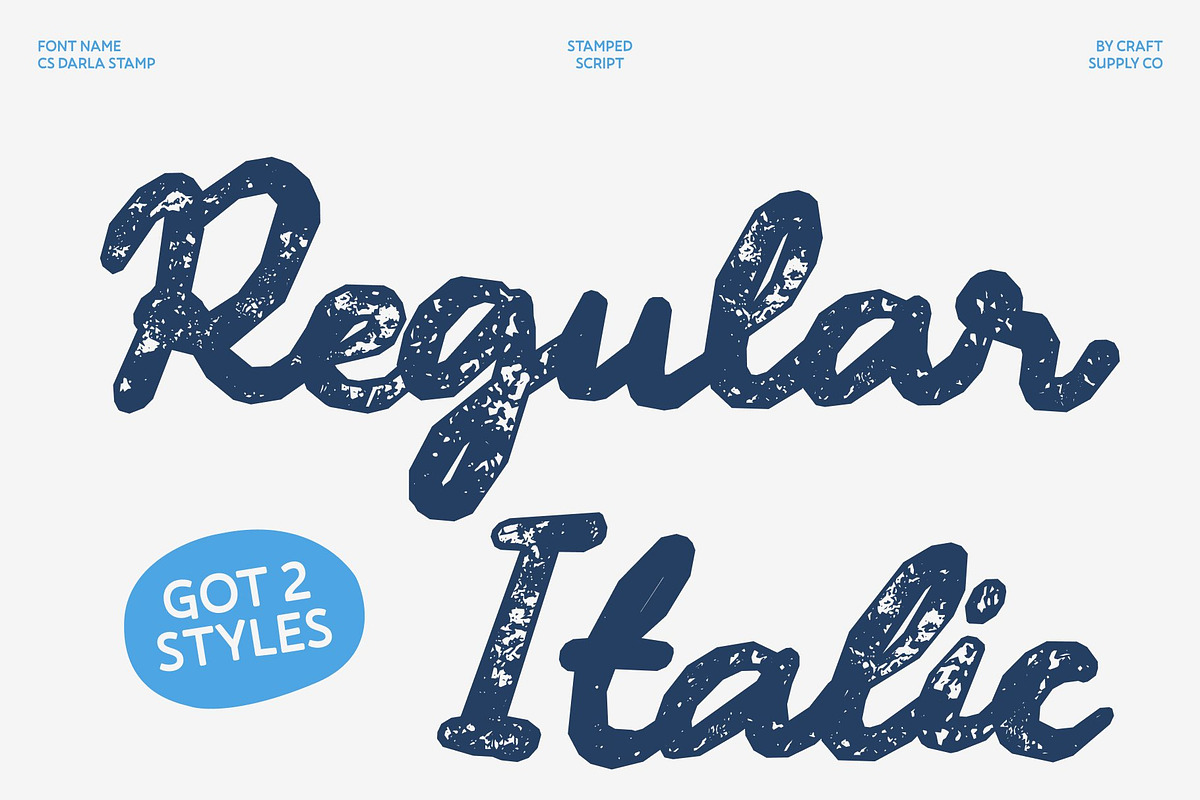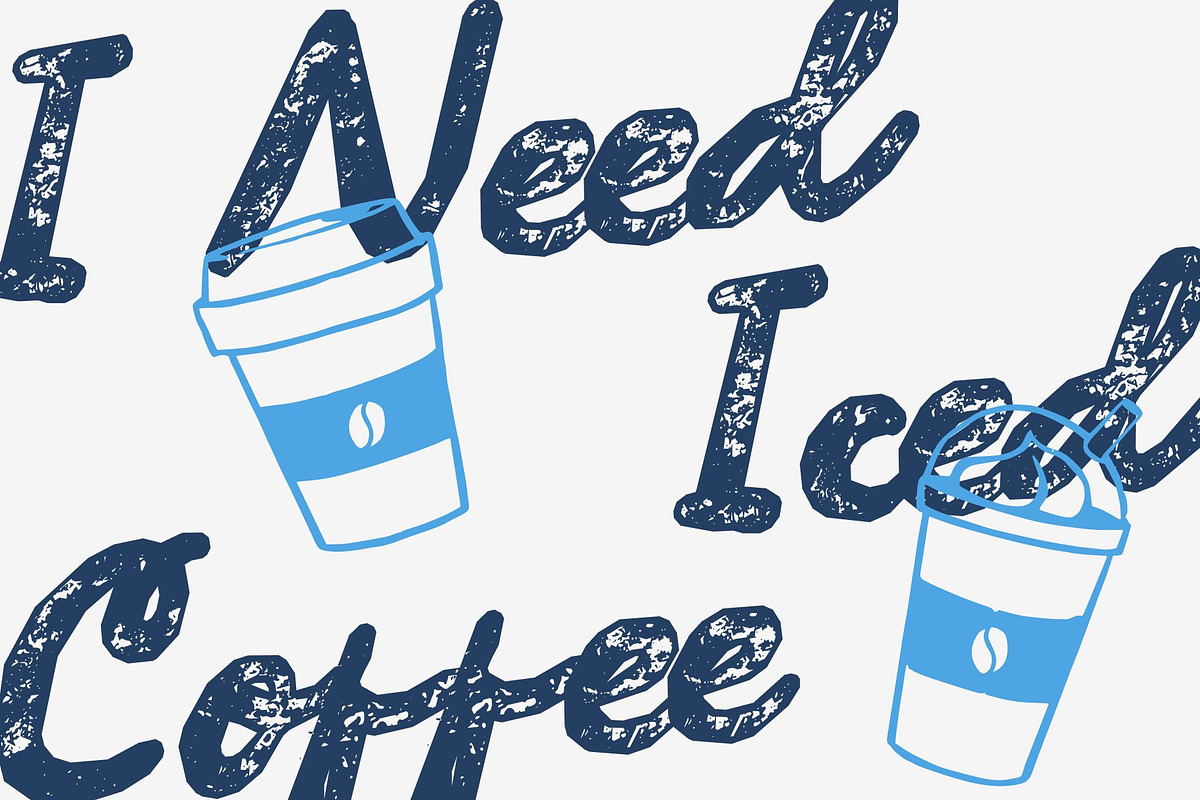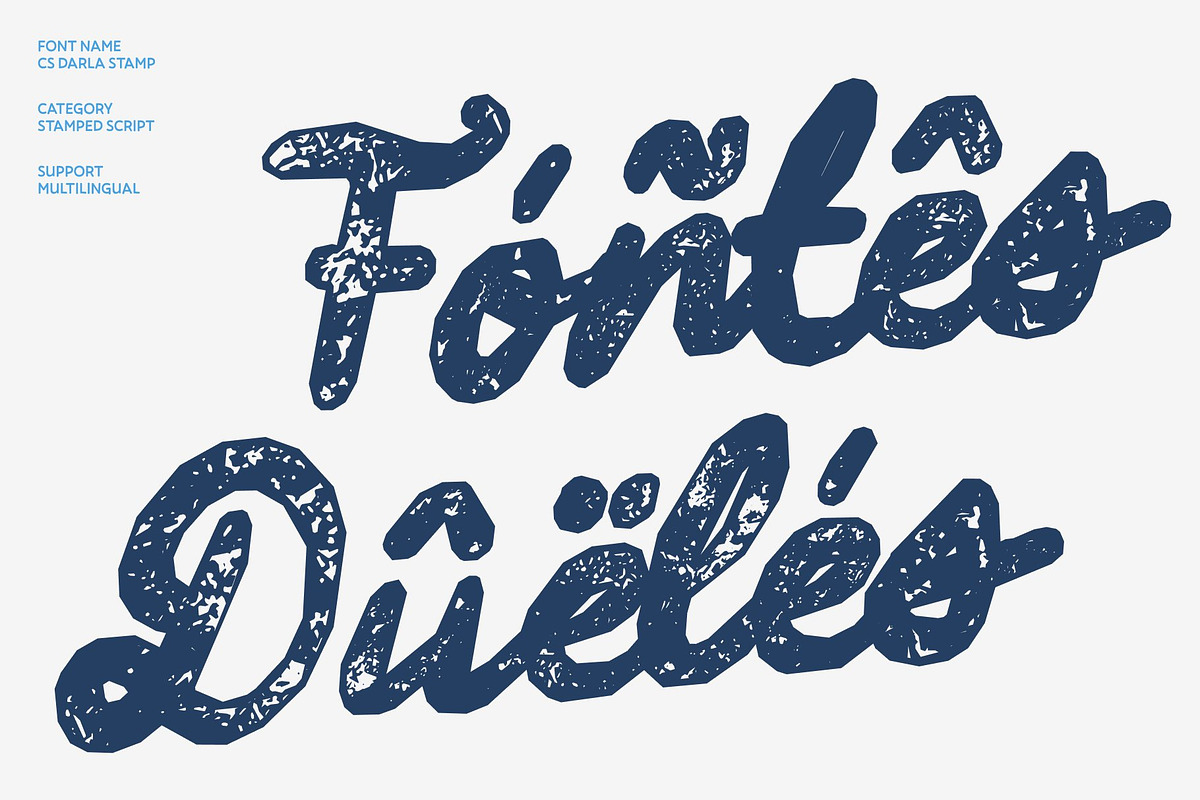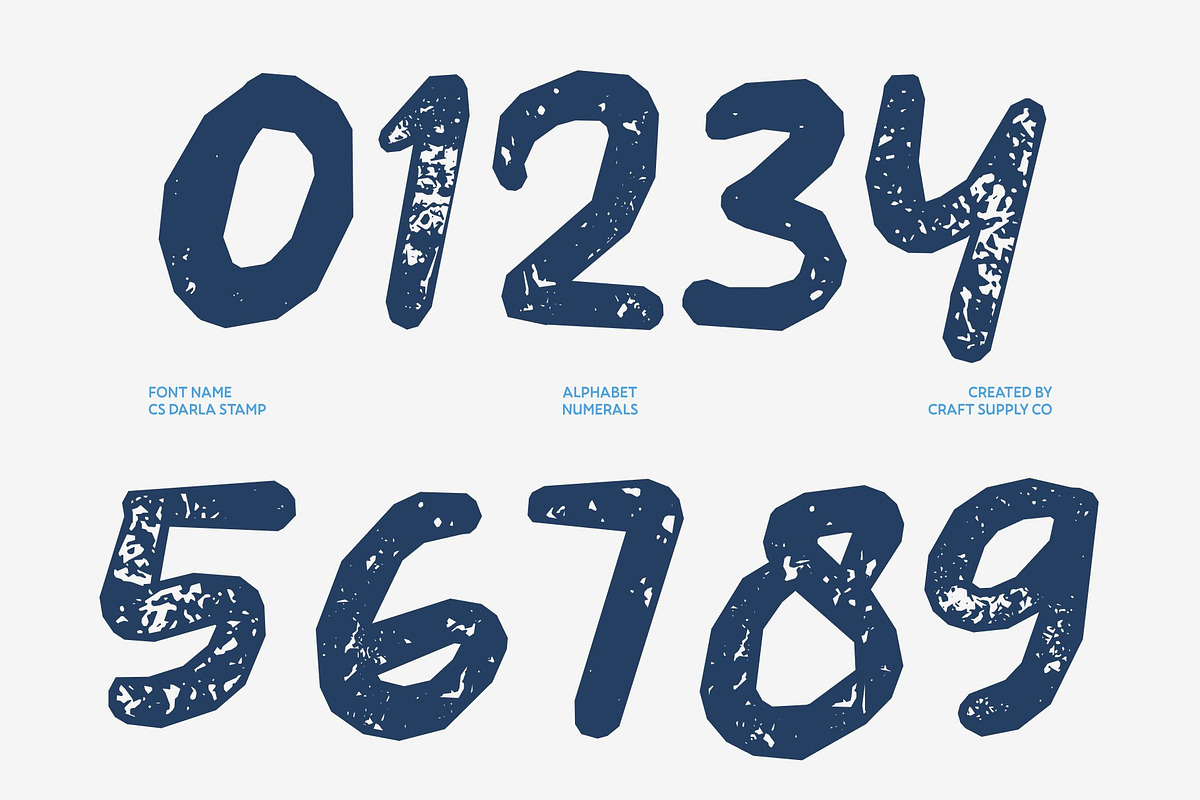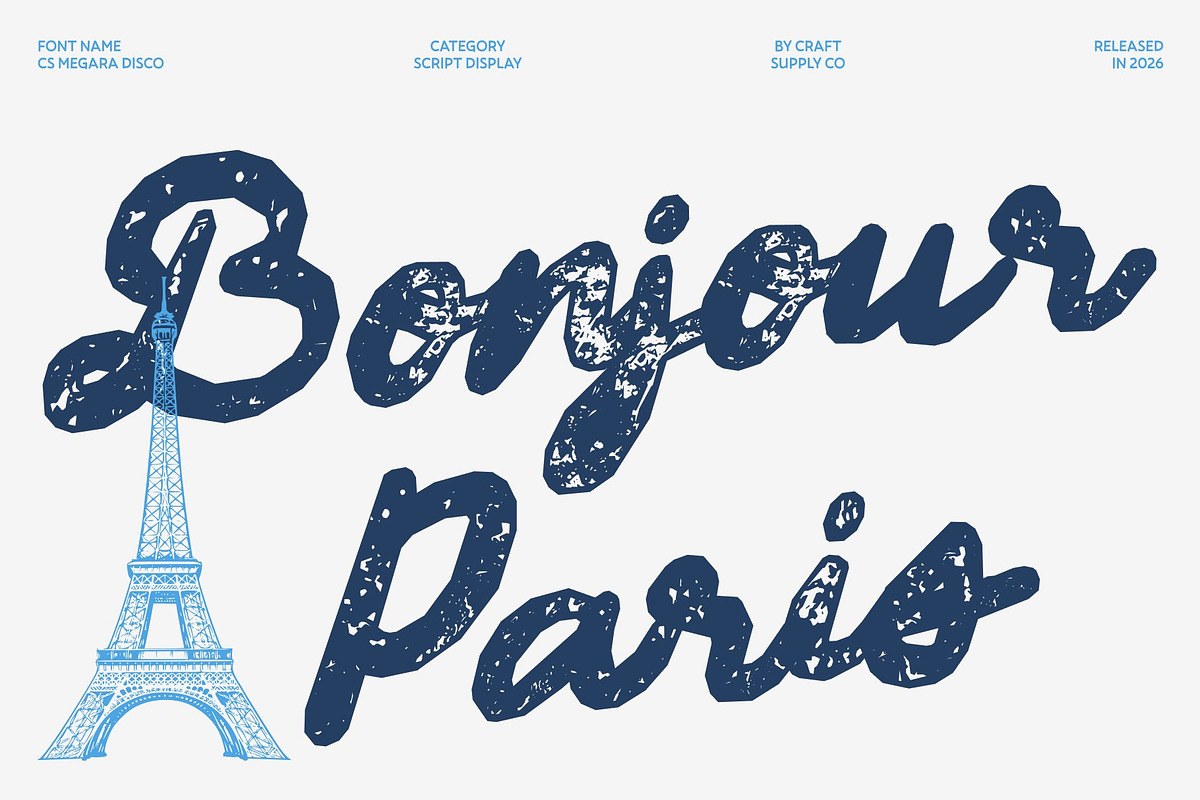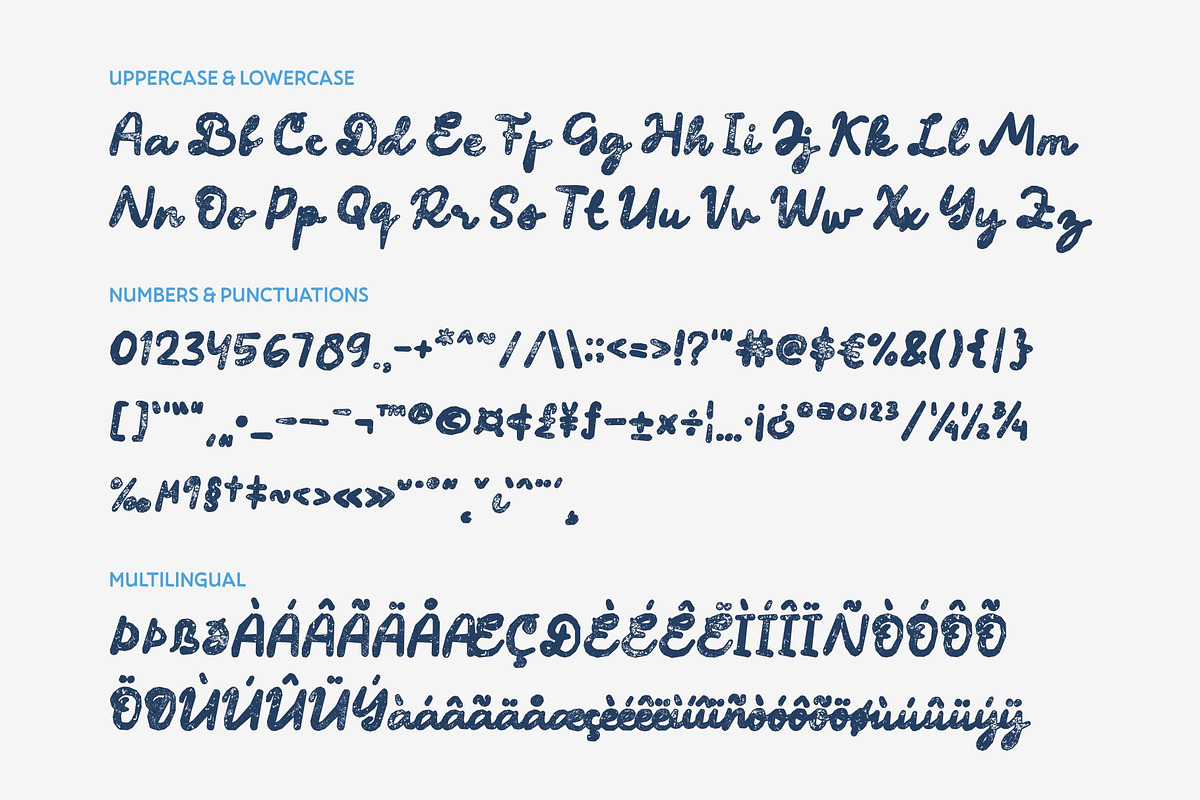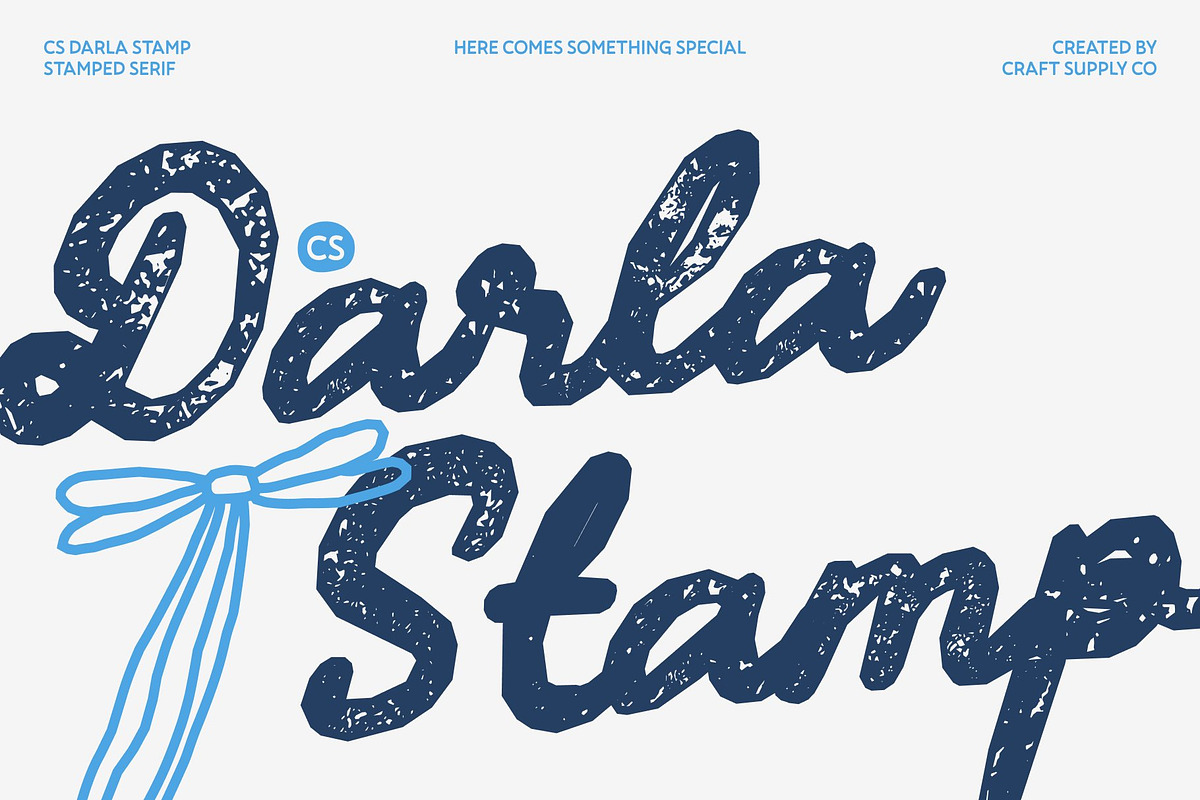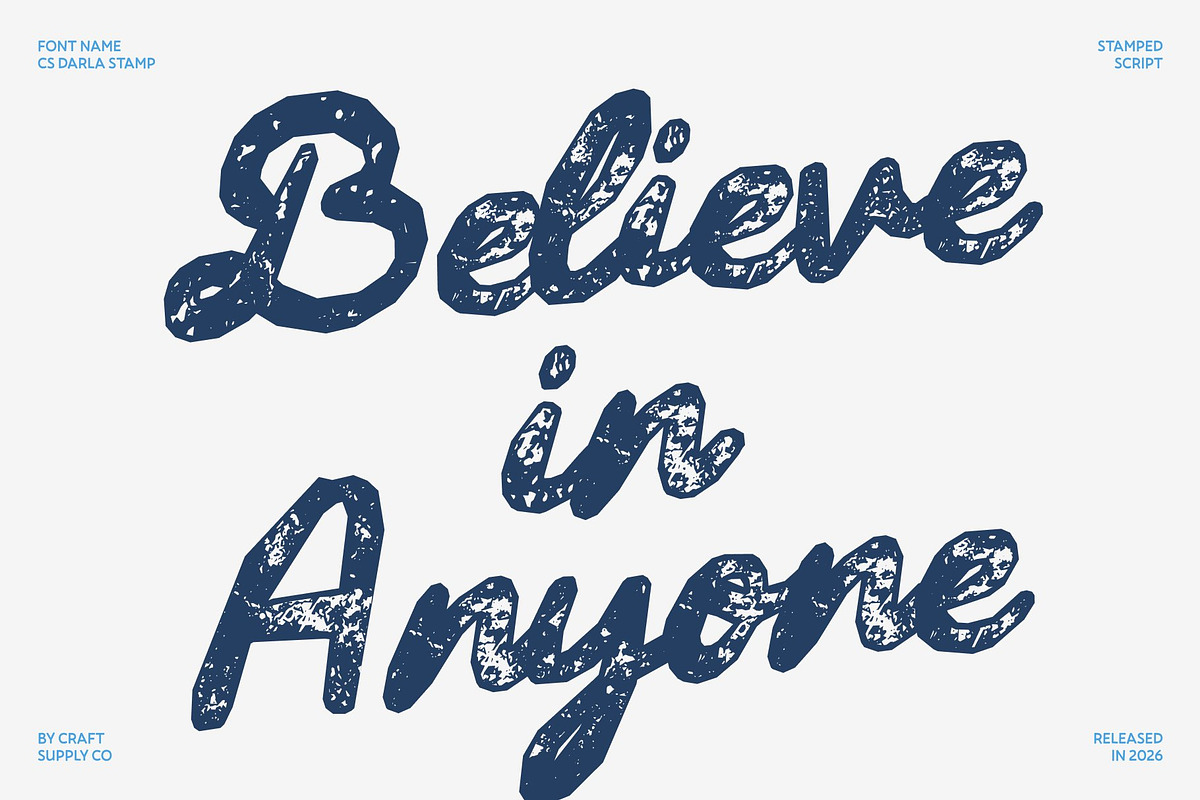
CS Darla Stamp
CS Darla Stamp – Chic Handwritten with Delicate Vintage Beauty
Chic Handwritten Script with Refined Charm This font is a chic handwritten script font designed to express delicate beauty and graceful individuality. With smooth strokes and a stylish flow, it captures modern elegance while maintaining a natural handwritten feel. Every letter feels personal, refined, and perfect for designs that seek sophistication, warmth, and a fashionable aesthetic.
Delicate Strokes with Creative Flourishes The font’s distinctive character comes from its delicate strokes and thoughtfully crafted flourishes. Each curve and connection adds visual interest without overwhelming the composition, keeping the typography elegant and readable. These refined details create a sense of artistry and exclusivity that elevates any design.
Vintage Stamp Texture with Artistic Softness Enhanced with a subtle stamp effect, this font gains a nostalgic and artistic texture. The lightly distressed details evoke the charm of classic ink impressions, adding warmth, depth, and timeless character while preserving its graceful elegance.
Perfect for Branding, Invitations, and Fashion Graphics Designed for versatile creative applications, this font excels in branding, invitations, fashion graphics, packaging, and editorial layouts. Its elegant handwritten form makes it especially suitable for beauty brands, wedding stationery, boutique logos, and lifestyle visuals.
CS Darla Stamp Regular
CS Darla Stamp Italic